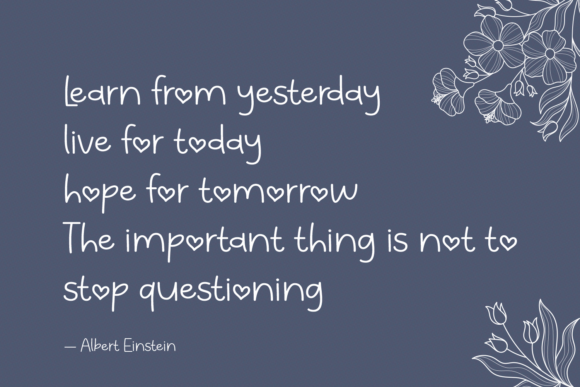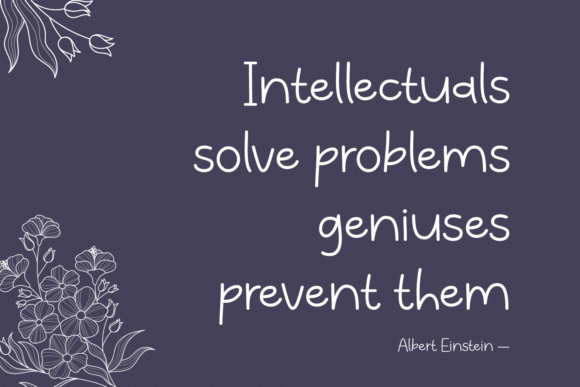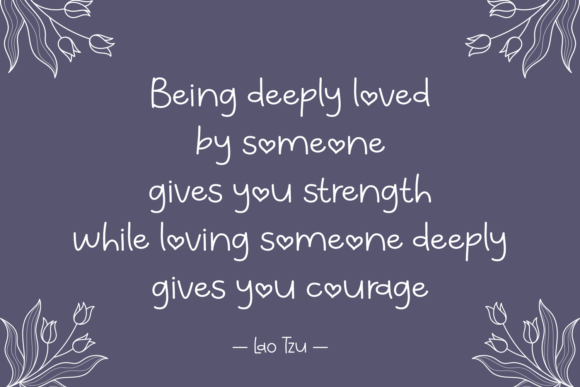
Discover the Charm of Before Loving You Font: Elevate Your Designs with Elegance
In the world of typography, fonts play a pivotal role in conveying emotions and setting the tone for any design project. Among the myriad of fonts available, the “Before Loving You” font stands out as a beacon of romance and delicacy. This sweet, delicate, and romantic script font has the power to transform your creative projects, making them not only visually appealing but also emotionally resonant. In this article, we’ll dive deep into the characteristics of the Before Loving You font, its versatility, and how it can be the perfect addition to your design arsenal.
The Essence of Before Loving You Font
Before Loving You is more than just a font; it’s an expression of love and elegance. Its sweet and delicate strokes are crafted to evoke feelings of warmth and intimacy, making it an ideal choice for projects that require a personal touch. Whether you’re working on wedding invitations, romantic getaways, or simply want to add a touch of sophistication to your branding, this font is sure to exceed your expectations.
One of the standout features of the Before Loving You font is its incredible versatility. It can easily be matched with an incredibly large set of projects, ranging from digital content to print materials. Here are a few ways you can incorporate this beautiful script font into your work:
- Wedding and Event Planning: Use it for wedding invitations, save the dates, and event banners to set a romantic tone.
- Branding and Packaging: Add a touch of elegance to your product packaging, logos, and brand identity.
- Digital Content: Enhance your blog posts, social media graphics, and email newsletters with a dash of romance and sophistication.
- Stationery and Crafts: Perfect for DIY projects, journals, and personalized stationery.
Why Designers and Crafters Love Before Loving You Font
Designers and crafters are always on the lookout for fonts that can help their projects stand out. Here’s why Before Loving You font has become a favorite among them:
- Emotional Connection: It creates an instant emotional connection with the reader, making your designs more impactful.
- Ease of Use: The font is easy to read and works well in both digital and print formats.
- Customization: Offers flexibility in terms of sizing and styling, allowing for endless creative possibilities.
- Uniqueness: Stands out from the more commonly used fonts, giving your projects a unique edge.
Tips for Using Before Loving You Font Effectively
To make the most of this beautiful font, consider the following tips:
- Pair it Wisely: Combine it with complementary fonts to create visual interest and hierarchy in your designs.
- Adjust Letter Spacing: For a more customized look, tweak the letter spacing to fit the mood of your project.
- Play with Colors: While the font itself is romantic, the right color scheme can enhance its beauty and suitability for your project.
The Before Loving You font is a beautiful addition to any designer’s or crafter’s toolkit. Its sweet, delicate, and romantic appeal can elevate a wide range of projects, making them more engaging and memorable. Whether you’re aiming to create something for a personal project or for a client, this font is sure to bring a touch of elegance and charm. So, add it to your creative ideas and notice how it makes them stand out!
Embrace the beauty of Before Loving You font in your next project and discover the difference it can make.